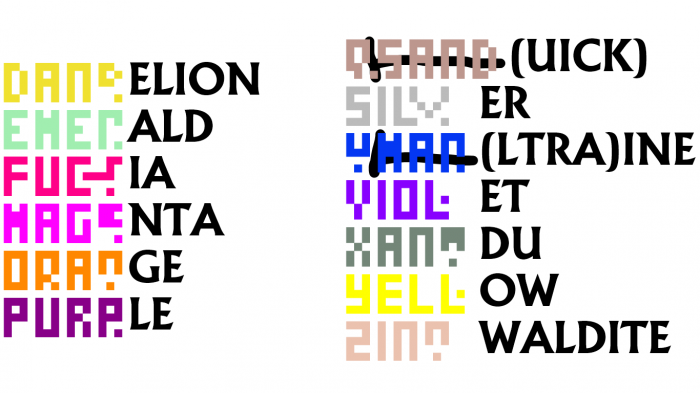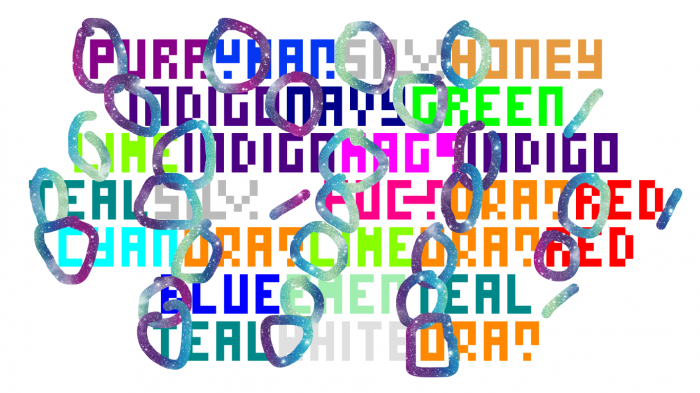
(PUSHING LIMITS FOR COLORBET TWO)
the original font (colorbet) has been deleted
bro...now you a PATROEN?!
no not at all
Cyan Orange Orange Lime!
(Capital letters only)